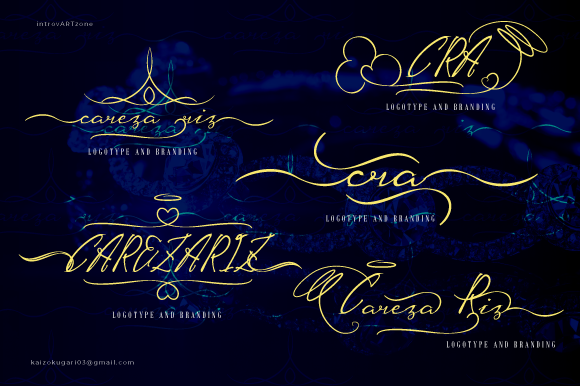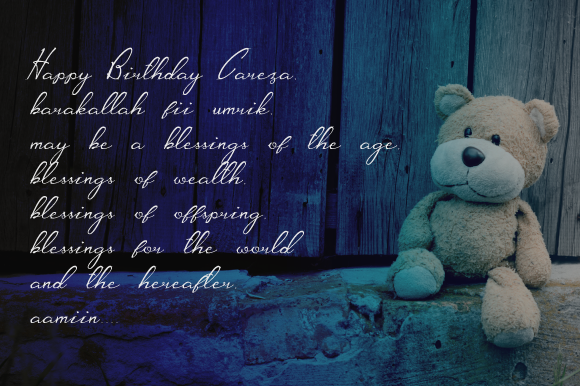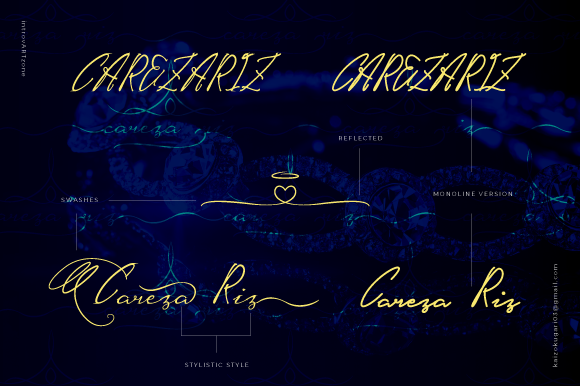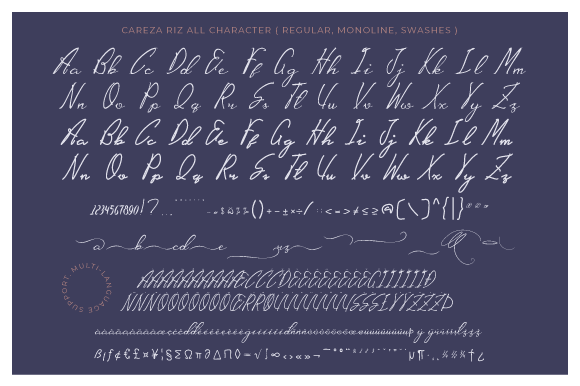
CarezaRiz Font
About CarezaRiz Font
Modern, yet classy, CarezaRiz is a must-have font for anybody looking for something truly magical. Get inspired by its rich swashes, and turn any design project into a true standout!